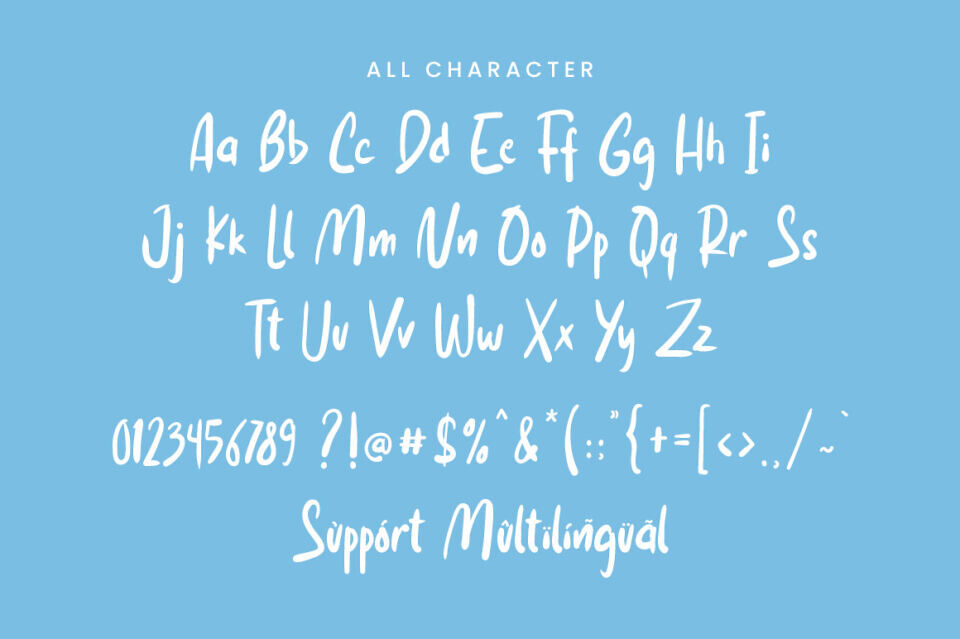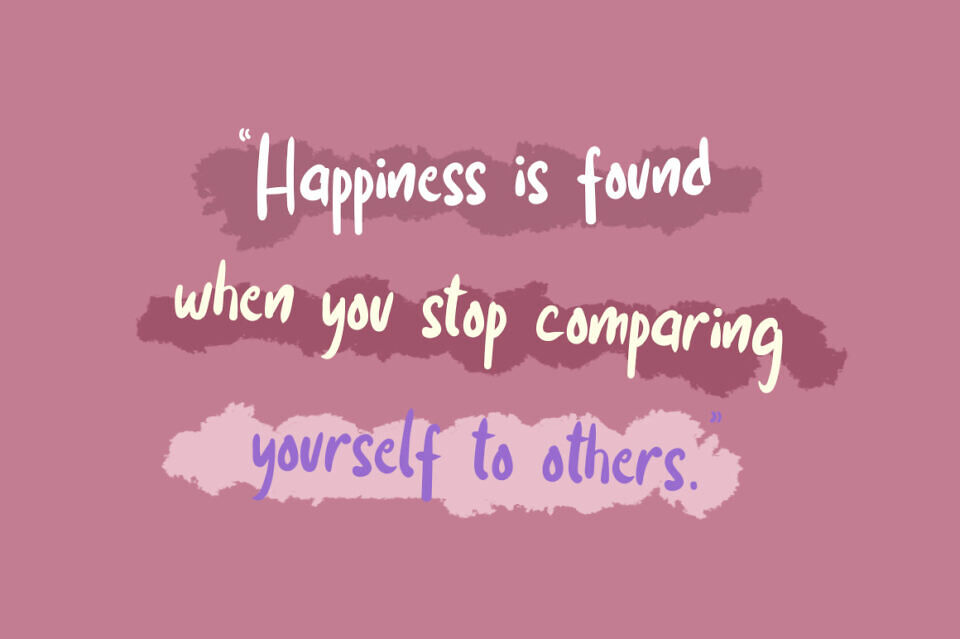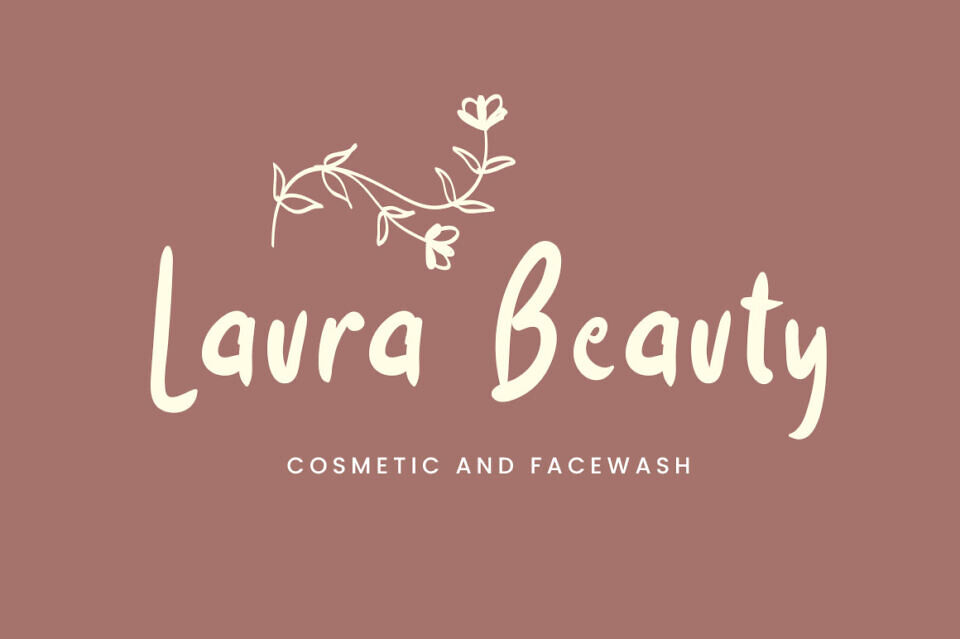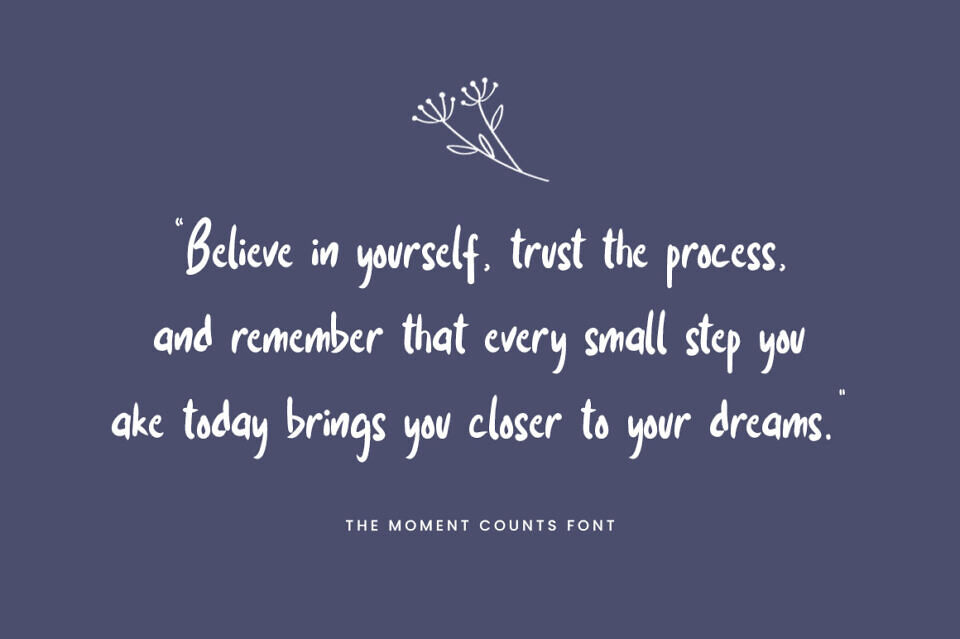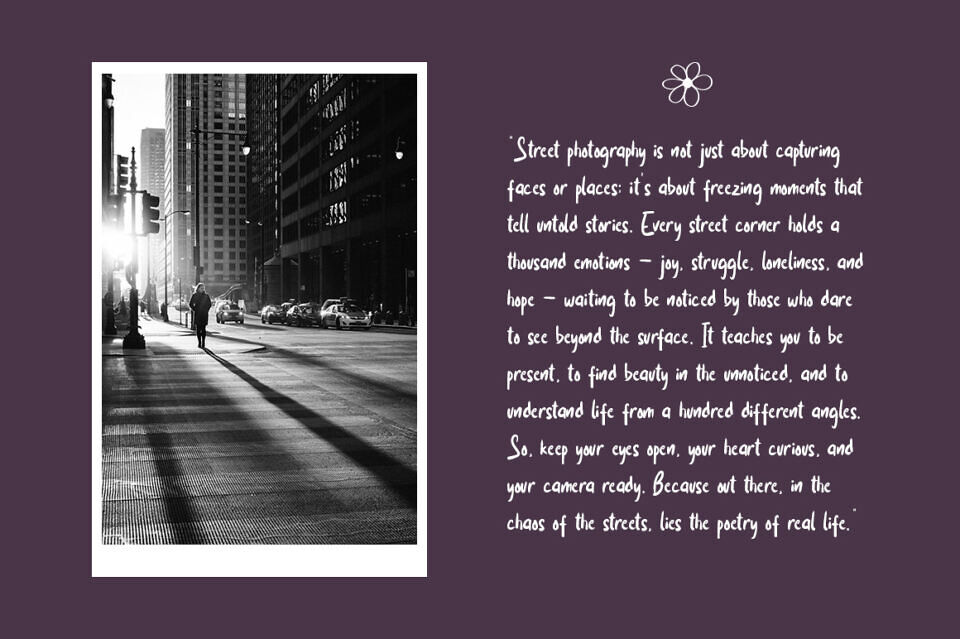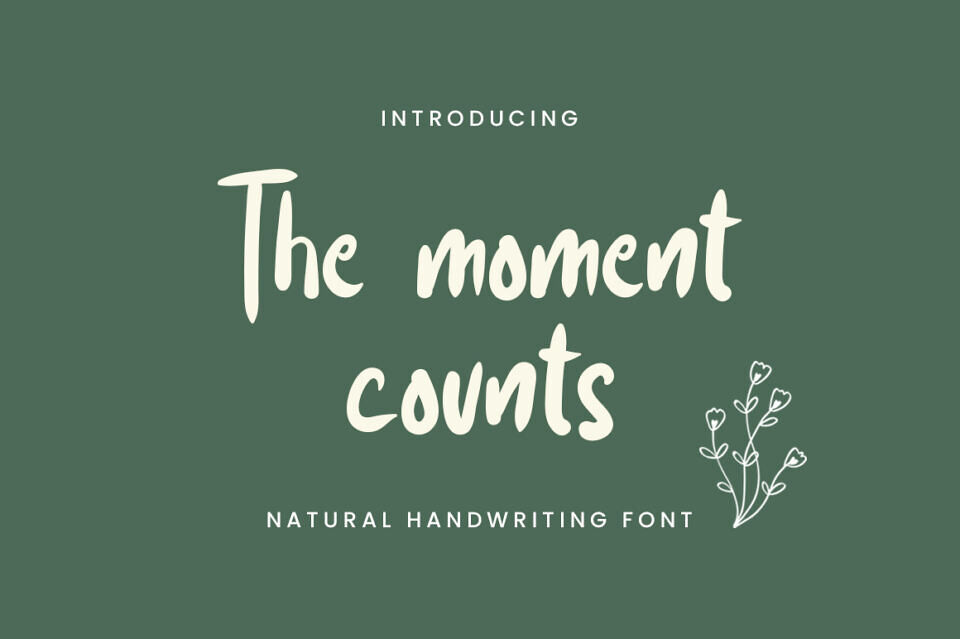
The Moment Counts Font
Introducing The Moment Counts – a beautifully crafted handwritten font that captures the essence of natural, effortless writing. With its smooth, flowing strokes and organic character, this font adds a touch of warmth and authenticity to every design.
Perfectly designed for quotes, branding projects, social media posts, logos, and invitations, The Moment Counts brings a personal and aesthetic vibe to your creative work. Its natural curves and subtle irregularities make every word feel alive, like it was written by hand in the perfect moment.